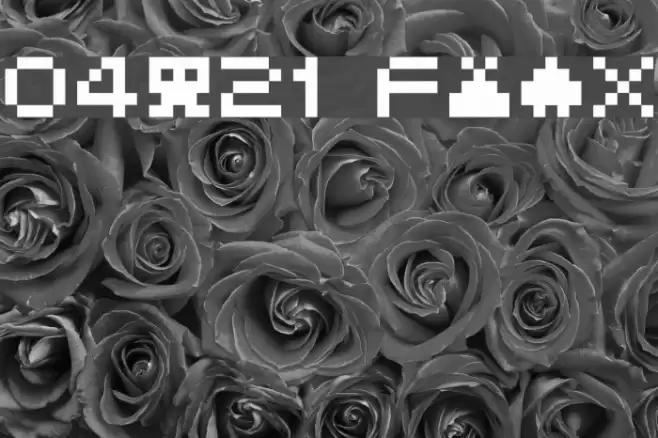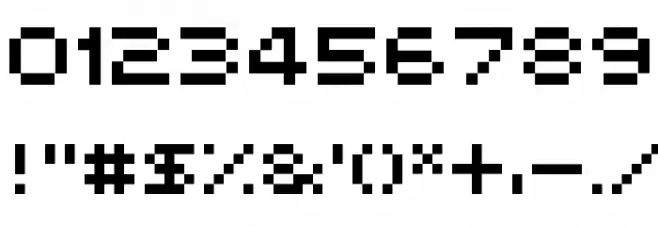
04b21 Font
04b21 Description
This font is a pixelated, monospaced typeface characterized by its blocky, grid-like appearance. Each character is constructed with a uniform pixel size, giving it a retro, digital aesthetic reminiscent of early computer and video game graphics. The font maintains consistent height and width across all characters, ensuring a balanced and cohesive look. Its simplicity and clarity make it highly legible, even at smaller sizes. The geometric structure of the letters and symbols contributes to its distinct, minimalist style, making it suitable for projects that aim to evoke nostalgia or a tech-oriented theme.
A pixelated, monospaced font with a retro digital aesthetic from Uncategorized fonts.
- Proposed Projects: Ideal for retro video games, digital art projects, tech-themed designs, and nostalgic branding.
- Overall Style: Retro
- Use Case: Logos, Digital displays, Video games